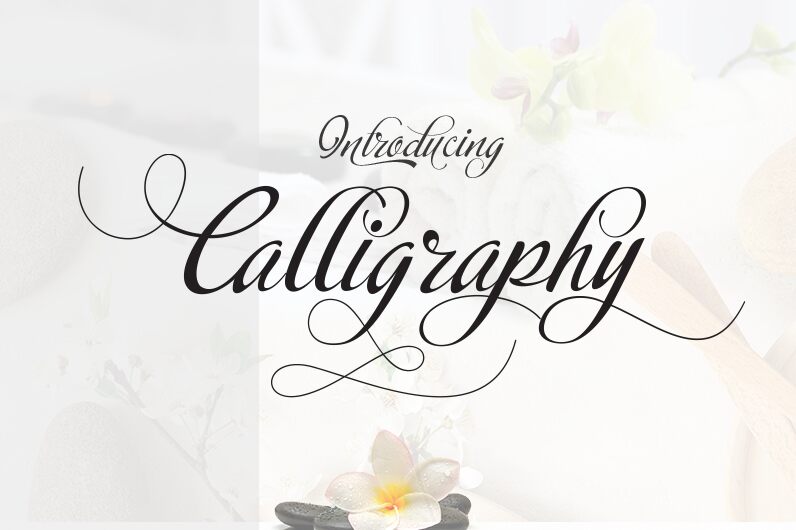
The elegant and graceful Calligraphy Script font, designed by Moriztype, flawlessly emulates the art of hand-lettering. With its delicate strokes and flowing curves, this semi-light calligraphy font adds a touch of sophistication to any project.
Ideal for wedding invitations, event posters, or branding materials, Calligraphy Script exudes romance and refinement. Its timeless charm effortlessly captures attention and elevates the visual appeal of your designs.
Transform your creations into works of art with the enchanting Calligraphy Script font.